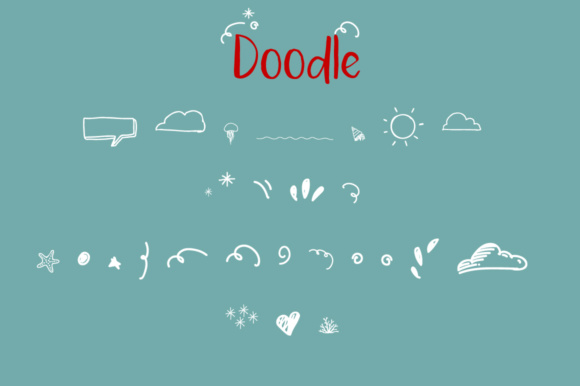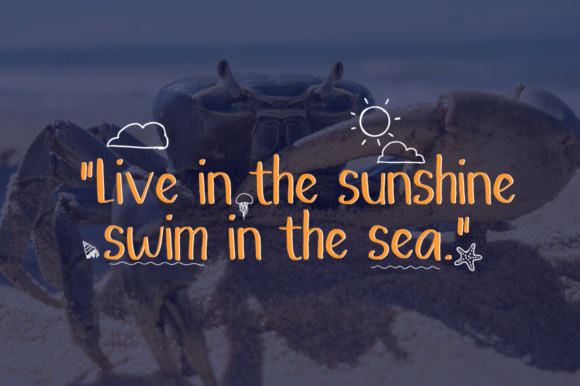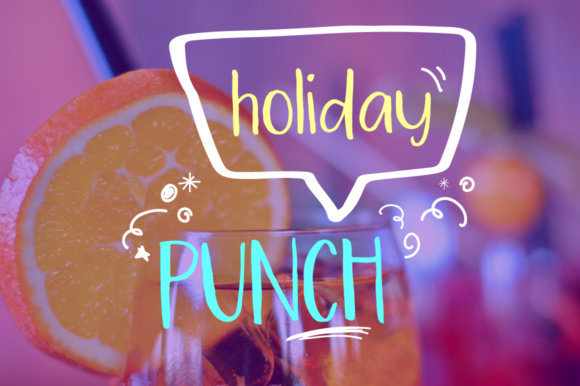
Introduction to Gumdrop Font
The Gumdrop is a casual handwritten font.
👤 Author Studio_Art
It was made with a bitty brush and pretty watercolors It has a little texture in it and wobbly rough watercolor edges.